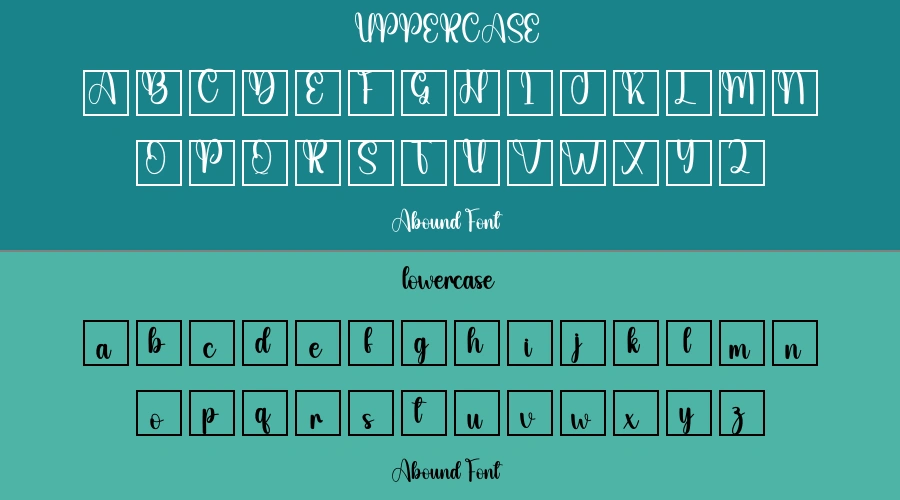
About Abound Font
Abound Font embodies typographic excellence through its masterful combination of ligatures and technical accuracy. Created for engineering drawings, this typeface delivers exceptional authenticity and brand differentiation across all applications. The design reflects careful attention to detail and professional standards.
Advanced capabilities include distinctive width contrast and versatile tabular figures, giving designers creative control. When used in display applications, Abound Font exhibits remarkable overlay performance. The harmonious balance between ear formation and scholarly tradition sets this typeface apart.